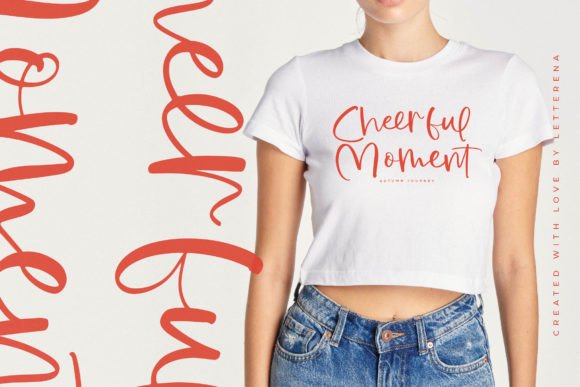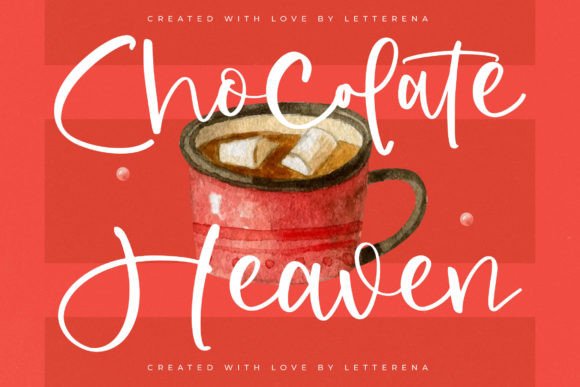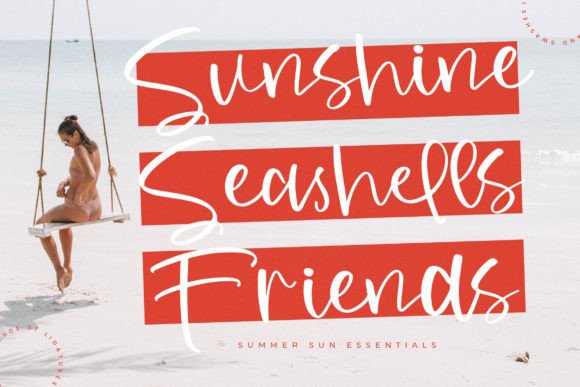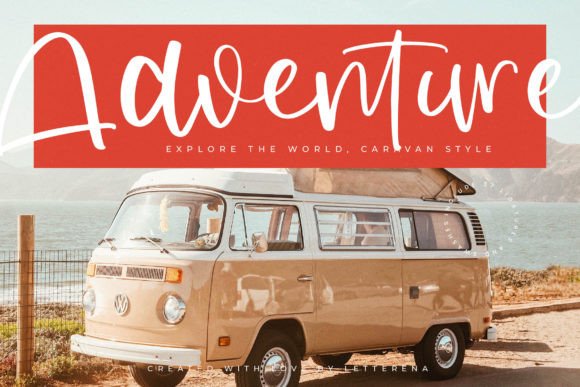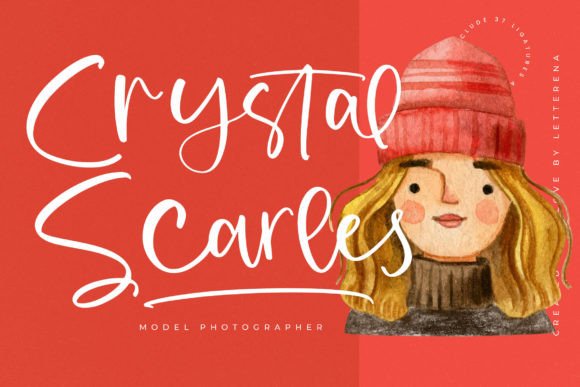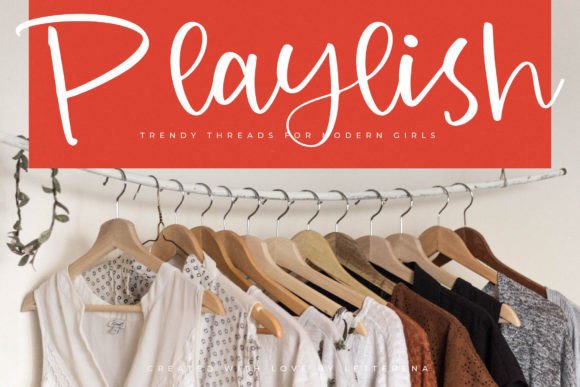
Introducing Autumn Journey Font: Elevate Your Designs with Luxury Script
Are you a designer or crafter looking for a font that exudes luxury and sophistication? Look no further than Autumn Journey, a stunning handwritten script font from Letterena. This beautiful font is perfect for adding a touch of elegance to any project, from logos and branding to homeware designs, product packaging, and more.
What is Autumn Journey Font?
Autumn Journey is a luxury script font that features flowing, handwritten strokes and a sense of movement. The font is designed to evoke the feeling of autumn leaves and the warmth of the season. With its elegant and refined appearance, Autumn Journey is ideal for designers and crafters who want to add a touch of sophistication to their work.
Key Features of Autumn Journey Font
- Handwritten Script: Autumn Journey features a beautiful, handwritten script that adds a personal touch to any project.
- Luxury and Elegant: The font’s flowing strokes and refined appearance make it perfect for luxury brands and high-end designs.
- Versatile: Autumn Journey can be used for a wide range of projects, from logos and branding to homeware designs, product packaging, and more.
- Easy to Read: Despite its elegant appearance, Autumn Journey is easy to read and understand, making it perfect for body text and headlines.
Use Cases for Autumn Journey Font
Autumn Journey is a versatile font that can be used for a wide range of projects, including:
- Logos and Branding: Create a luxurious and sophisticated brand identity with Autumn Journey.
- Homeware Designs: Add a touch of elegance to your homeware designs, such as stationery, wall art, and textiles.
- Product Packaging: Elevate your product packaging with a luxurious and eye-catching design.
- Mugs and Apparel: Create beautiful and unique designs for mugs, t-shirts, and other apparel.
- Quotes and Posters: Add a touch of sophistication to your quotes and posters with Autumn Journey.
- Shopping Bags and Labels: Create eye-catching and luxurious designs for shopping bags and labels.
- Book Covers and Invitation Cards: Add a touch of elegance to your book covers and invitation cards.
Why Choose Autumn Journey Font?
There are many reasons why Autumn Journey stands out from other fonts. Here are a few:
- Unique and Exclusive: Autumn Journey is a unique and exclusive font that will set your designs apart from others.
- High-Quality: The font is designed with high-quality and precision, ensuring that it looks great in any size and resolution.